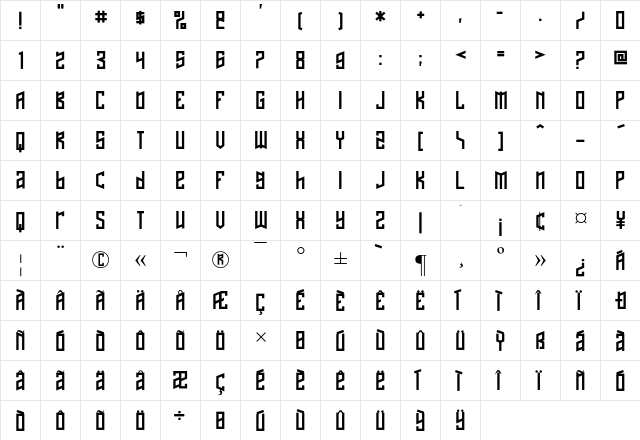
NAFTAlene Regular
Design Context for NAFTAlene Typeface
NAFTAlene is a composed and adaptable typeface that performs quietly and consistently across a wide range of design contexts.